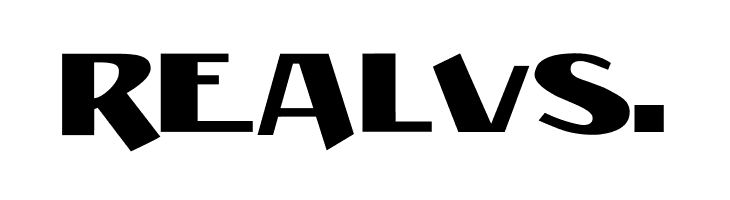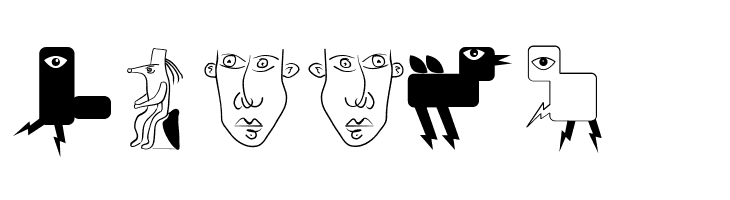
• Make Your Own Pets LT
• Makimango
A bold, geometric font with thick strokes and a strong, cohesive design.
• Makimango Oblique
A bold, oblique font with a dynamic and energetic style.
• Making Music JL
A decorative font featuring musical instruments and equipment as characters.
• Makushka
A bold, geometric font with a modern, monospaced appearance.
• Makushka Regular
A bold, modern font with a geometric and uniform design.
• MakushkaKontura
A bold, outlined font with a modern geometric style.
• MakushkaQuadriga
A bold, geometric outline font with a modern aesthetic and consistent character width.
• MakushkaSecunda
A bold, geometric font with strong outlines and a modern aesthetic.
• Mala Vida St
• Malache Crunch
• Malachim
• Malapropism
A bold, textured font with a distressed, grunge appearance.
• Malbourne FREE
An elegant, flowing script font with smooth, cursive strokes and graceful curves.
• Maldins FREE
• Malema Free Regular
A bold, flowing script font with smooth, cursive letterforms.
• Malevolent z
A bold, distressed font with a grunge aesthetic.
• Malheur
A cartoon dingbat font featuring detailed everyday life illustrations.
• Malibu Sunset Free Sans Italic
A modern sans-serif italic font with a sleek and dynamic appearance.
• Malibu Sunset Free Script
A modern, handwritten script font with elegant, flowing letters.
• Malibu Sunset Free Script Ita
A flowing, cursive script font with a casual elegance and interconnected letters.
• Malibu Sunset Sans Free